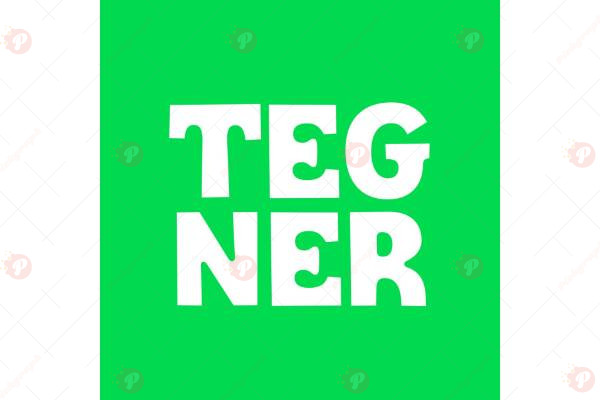
The Tegner Font Free is a modern geometric sans serif typeface designed for clean, minimal, and professional typography. With its balanced proportions, sleek lines, and versatile style, it’s ideal for branding, editorial layouts, websites, corporate materials, and creative digital designs.
Perfect for logos, headlines, magazines, packaging, and social media graphics, Tegner Font Free combines modern simplicity with timeless elegance, making it a great choice for both print and digital projects.
Typeface: Sans Serif / Geometric / Modern
Style: Clean / Minimal / Professional / Versatile